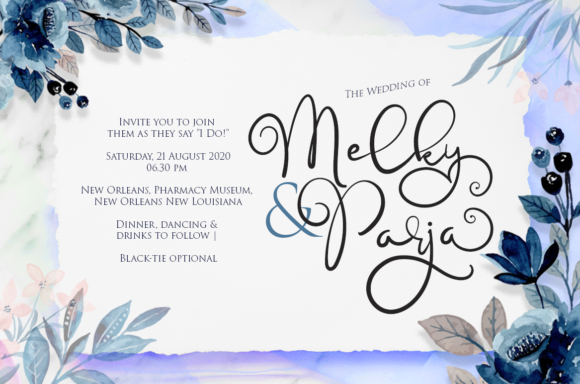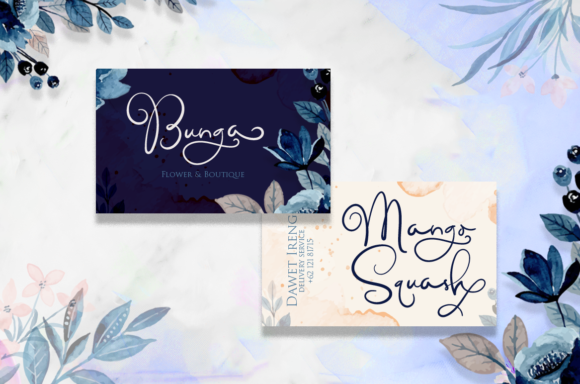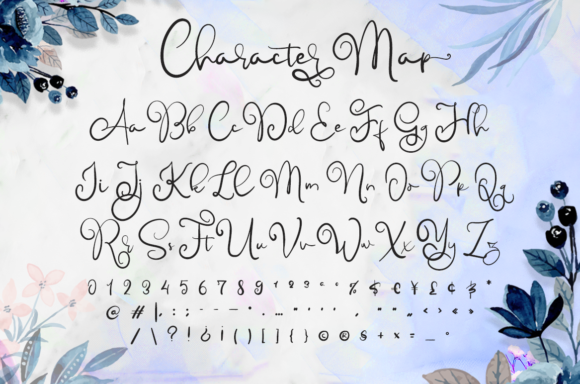
About Childish Font
Childish is a fun and joyful handwritten font. It looks stunning on wedding invitations, thank you cards, quotes, greeting cards, logos, business cards and every other design which needs a handwritten touch.This font is PUA encoded which means you can access all of the glyphs and swashes with ease!